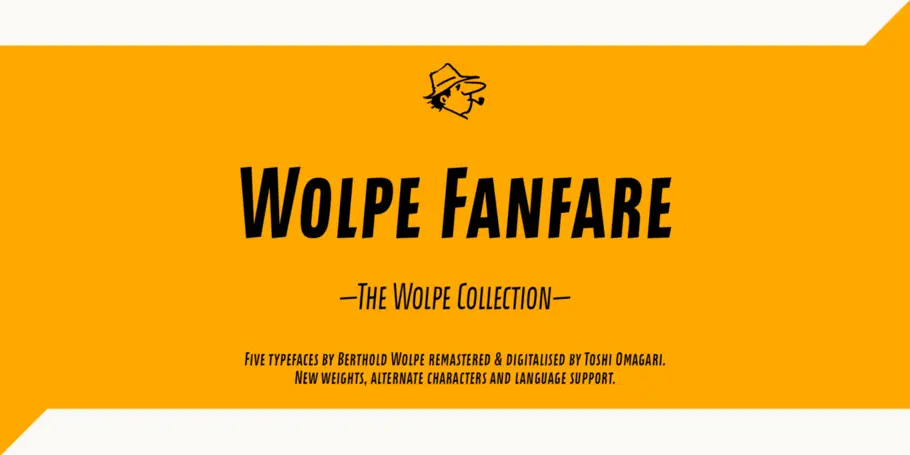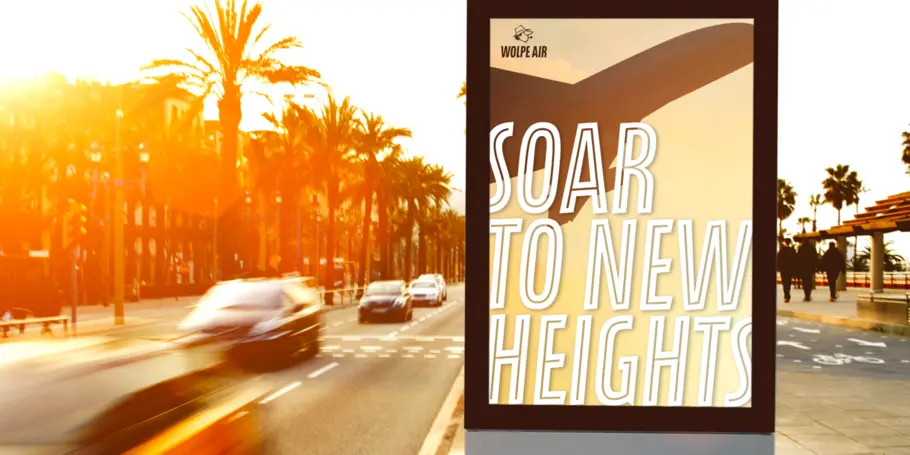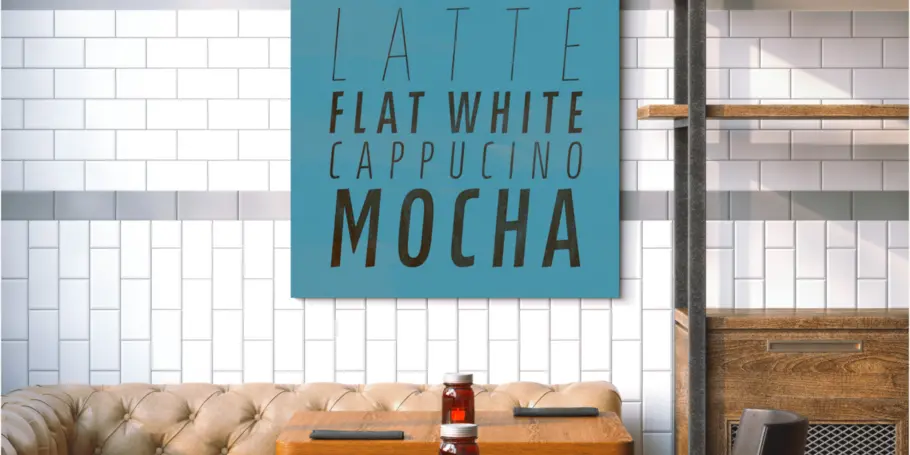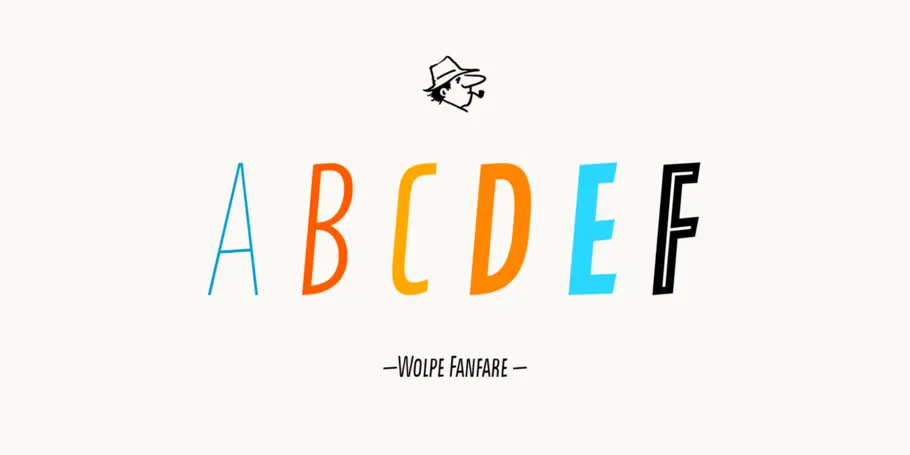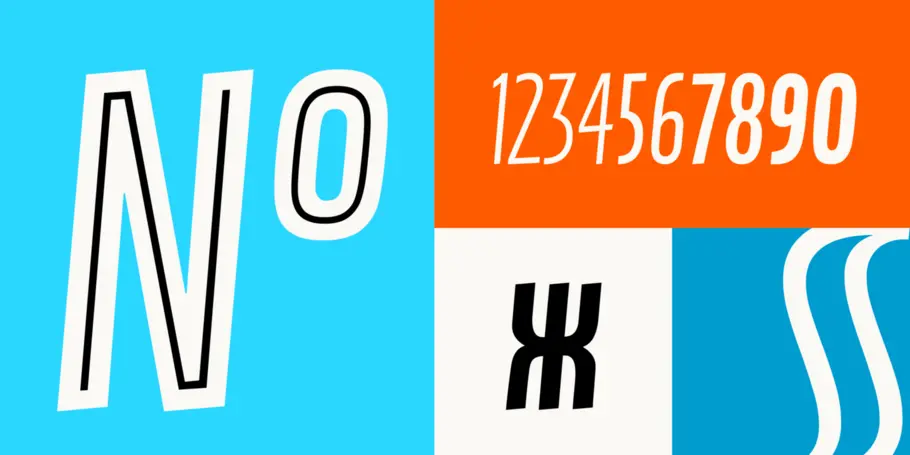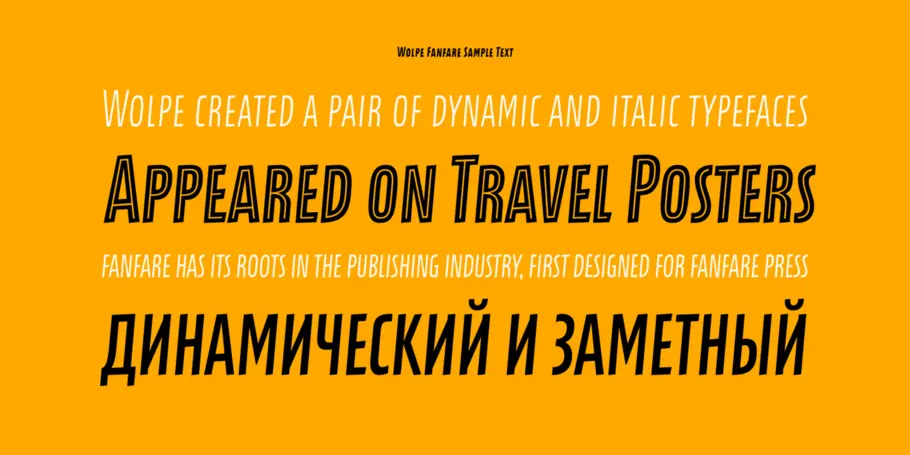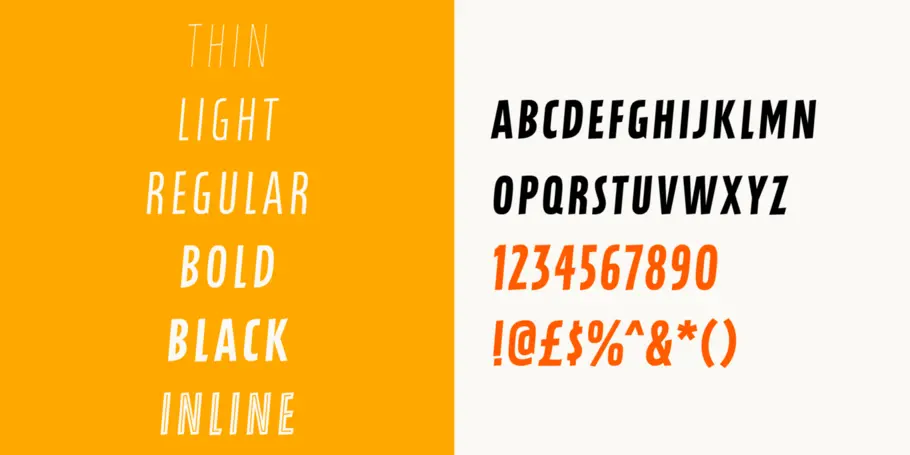
Wolpe Fanfare™
Wolpe Fanfare is part of The Wolpe Collection of typefaces, and displays an unmistakable sense of energy with an all-caps, sans-serif character set that leans forward, urging the eye forward. The Wolpe Collection celebrates Berthold Wolpe’s outstanding body of work, and includes five iconic typefaces, digitized and updated by Toshi Omagari of the Monotype Studio.
Initially designed for Fanfare Press, the Fanfare typeface packed more into a small space than most typefaces. It was a natural for book and movie titles, and more general branding. “Fanfare is such a fun typeface,” says Toshi. “It was my happiest discovery when I was digging through the Monotype archive. I came across it and had to check the designer’s name.” No wonder: the Fanfare typeface, brimming with energy and optimism, is not a style you’d immediately associate with Berthold Wolpe, who best known for Albertus. Albertus is serious, classical and monumental, while Fanfare is modern, light and playful.
Eighty years on, the Fanfare typeface needed to be digitized and updated to serve a full range of modern applications. Toshi designed six weights - light, thin, regular, bold, black and inline - all of which preserve the character of the original letterforms. “I wanted to do more than digitize the original weight,” says Toshi. “It’s surprisingly modern, and its skeleton, its basic structure, is so beautiful.” To complete the Wolpe Fanfare font set, he added Greek and Cyrillic characters.
Berthold Wolpe helped shape graphic design in post-war Europe. His book jackets, with their intense colour and vivacious typography, were way ahead of their time, and his Albertus® typeface continues to be widely admired and used by designers today.
With a focus on multilingual typography, Senior Type Designer Toshi Omagari has created fonts for several major brands and worked on some of Monotype’s most recent major type releases. He is a regular speaker at events like ATypI, sharing his experience and insights on multilingual type design.